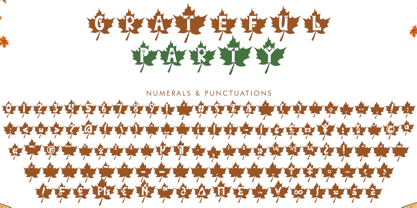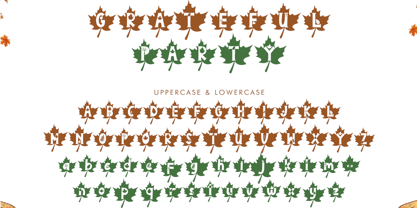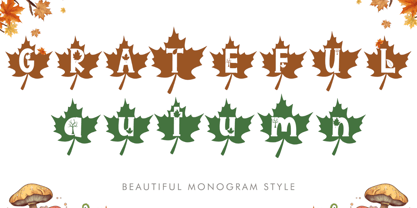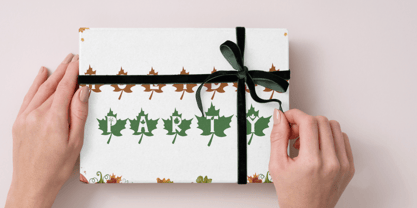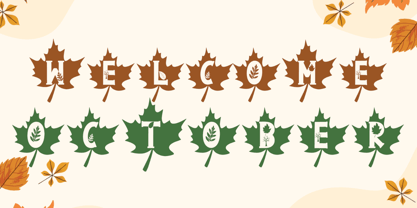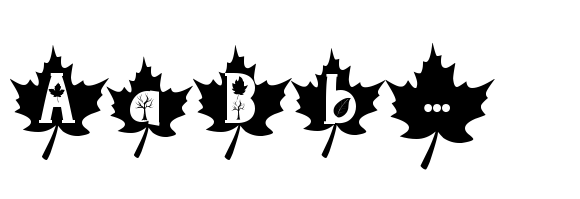
Grateful Autumn
by Selvia Design
The Grateful Autumn Font Family was designed by Selvia Cahya and published by Selvia Design. Grateful Autumn contains 1 styles. More about this family
"Grateful Autumn" is a unique and beautiful autumn monogram font. It features uppercase and lowercase letters, numerals, punctuations, and multilingual support. It's perfect for logos, Christmas, fall, and autumn, stickers, banners, branding, prints, Halloween, winter, Thanksgiving, holidays, Valentine's Day, sublimation, spring, Easter, and summer, among other uses.
Designers: Selvia Cahya
Foundry: Selvia Design